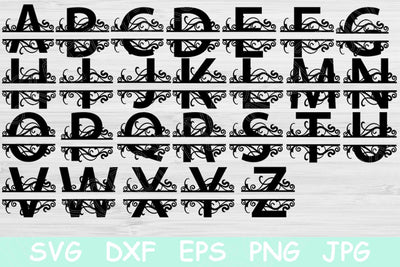
Alphabet Svg, Split Letter Monogram Svg. Split Font Svg Files for Cricut. Initial Split Monogram Svg. Split Letter Svg Vector Cut Design.
This split letter svg cut file that is 26 upper case letters monogram svg is the perfect cricut cut files to customize gifts. It would look great on a wood sign, metal pail, or plate. This purchase will allow you to use vinyl, paper, or your other favorite medium.
This is the entire alphabet.